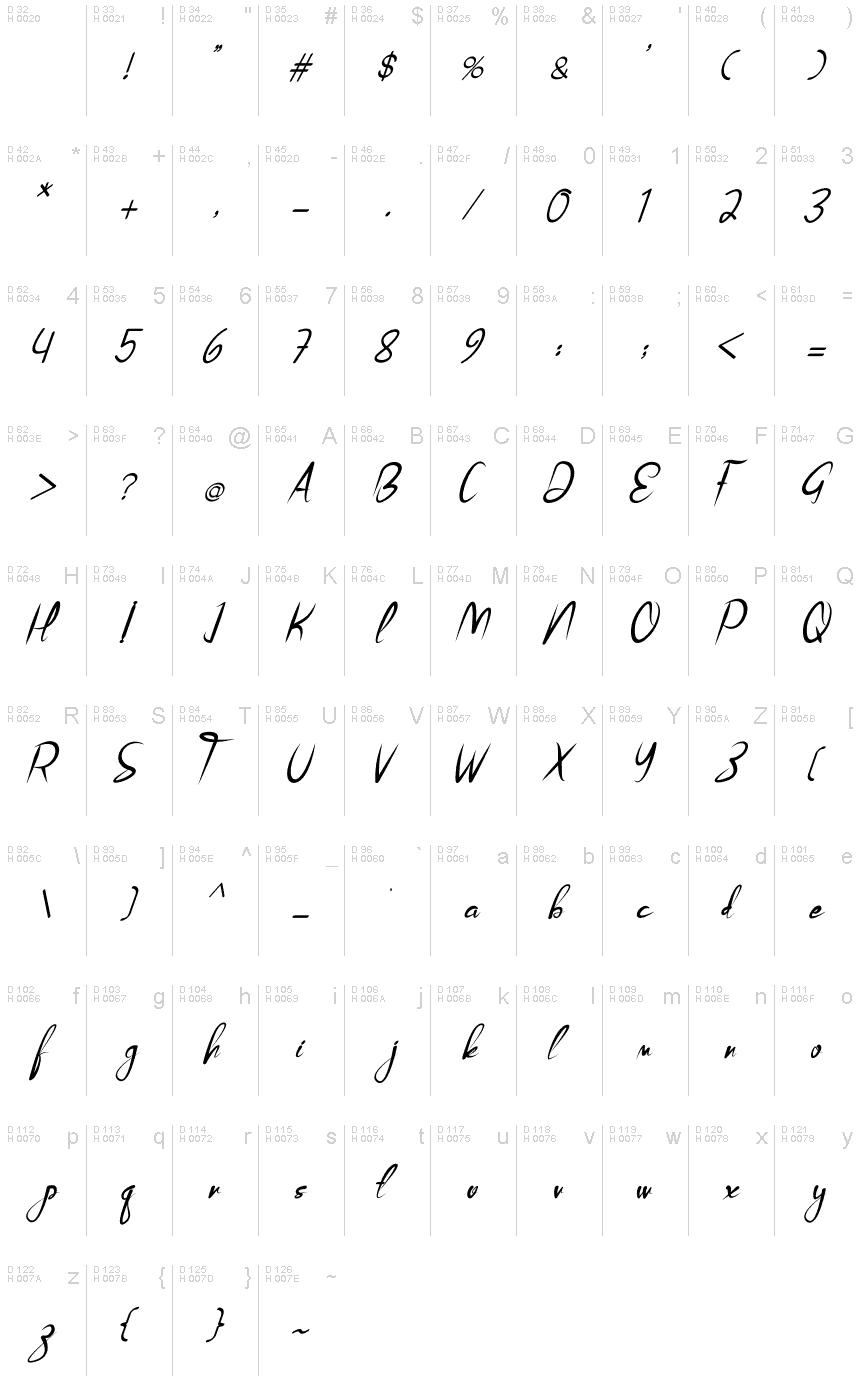
Sweet Child Italic
Sweet Child Italic is a playful, handwritten font designed by Design Vector10. Its semi-light weight and semi-condensed width make it perfect for creating eye-catching headlines, social media graphics, and digital invitations. The italicized style brings a sense of whimsy to any project, whether it be a children's book cover or an event flyer. Use Sweet Child Italic to add a personal touch to your designs and stand out from the crowd. This font is suitable for all kinds of projects that require a fun and charming aesthetic.